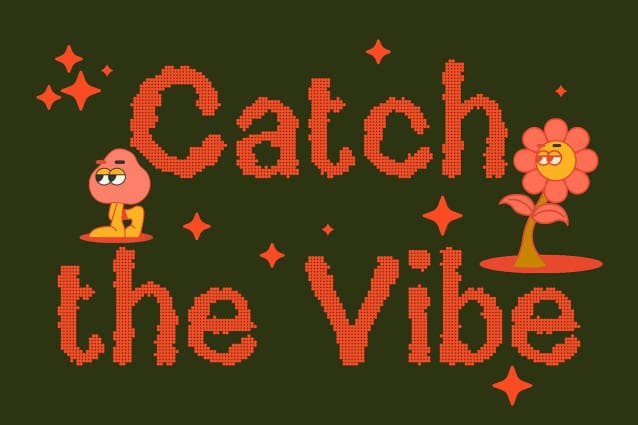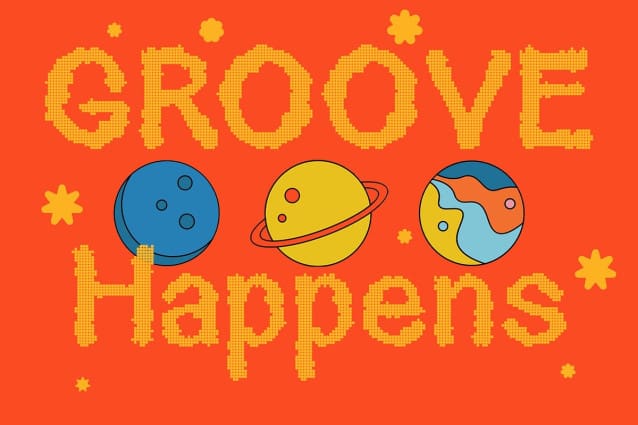
Cavella Disco Font
Cavella Disco Font – Bold Display Font with a Sparkling Personality,Display Font with Funky Energy This is a bold display font that bursts with personality and rhythm. Its rounded, slightly preppy shapes exude a funky and cute energy that instantly brightens any design. Perfect for projects that aim to stand out, this font captures the essence of fun and celebration with every curve and stroke.
Disco Effect for Dynamic Style Infused with a disco-inspired aesthetic, this is shines with a subtle sparkle and visual rhythm. Each letter feels alive radiating a sense of movement and light, as if it’s dancing to the beat. This lively effect gives your typography a glamorous and dynamic touch that captivates attention at first glance.
Bold Shapes for Confident Impact The bold weight of this is enhances its readability and visual presence. Combined with rounded letterforms, it creates a friendly yet confident tone that works beautifully for headlines, logos, and attention-grabbing designs. Whether used big or small, this font delivers a statement of bold creativity.
Perfect for Playful and Lively Projects This font is designed for creators who want to infuse energy and joy into their work. Ideal for posters, branding, music designs, party invitations, and creative campaigns, it brings an irresistibly fun and lively vibe. If your goal is to make your design sparkle with excitement, this font is your perfect dance partner.